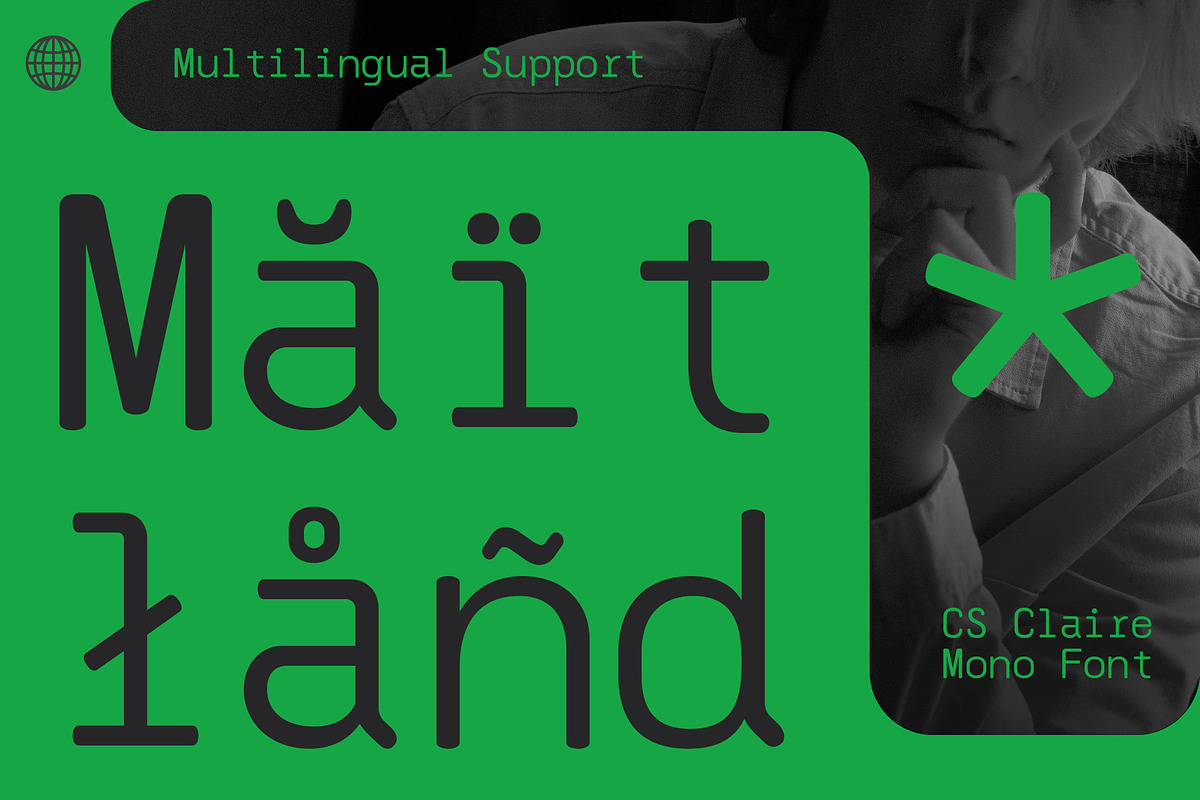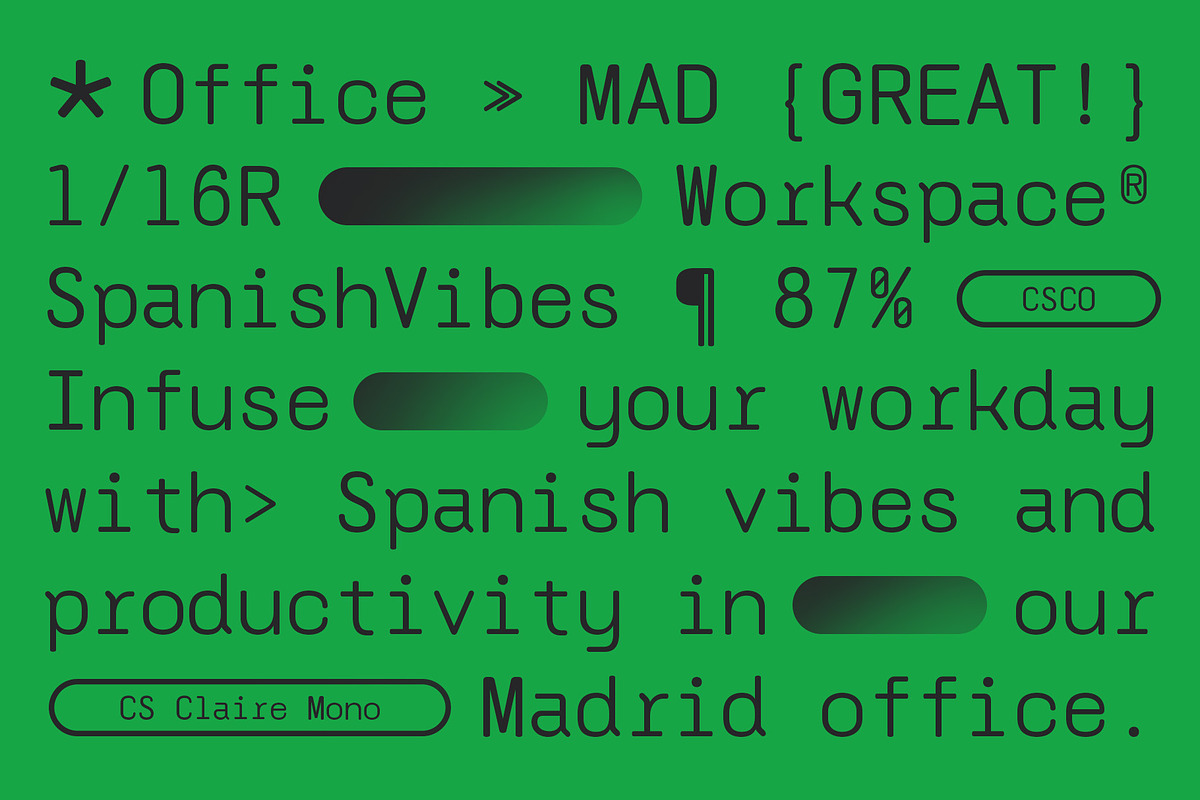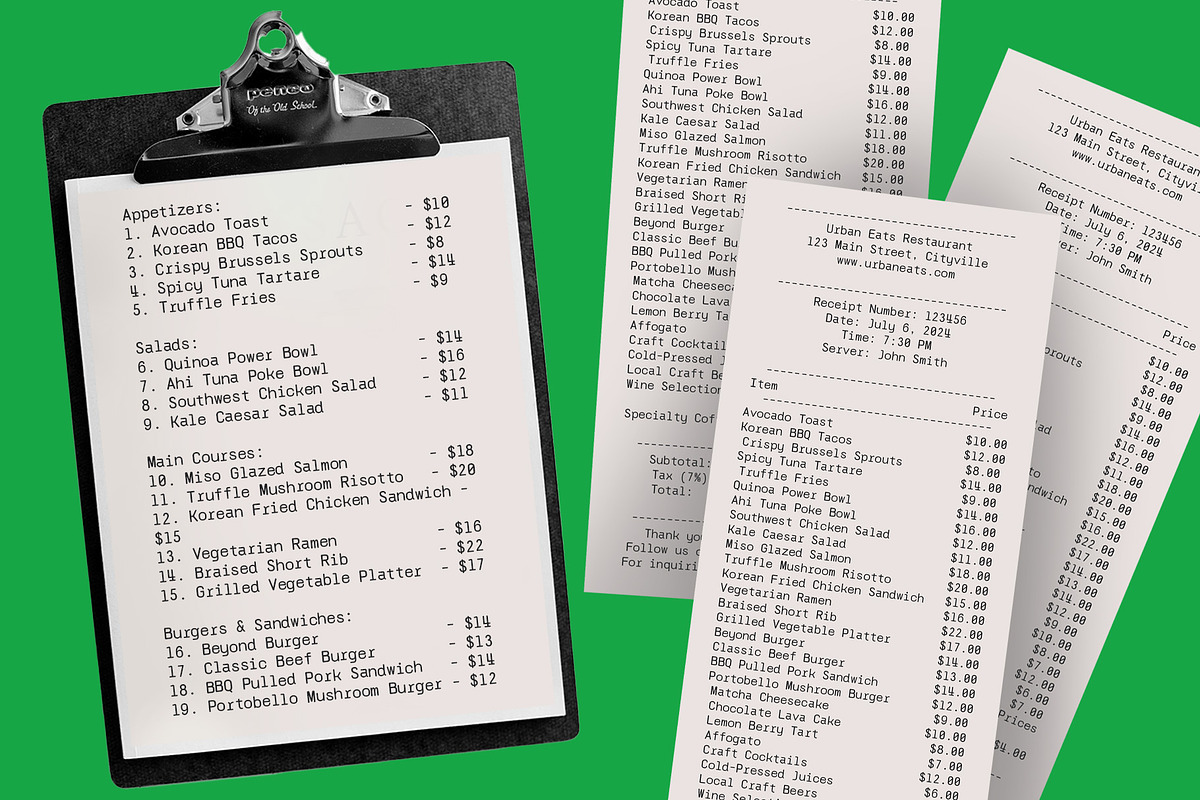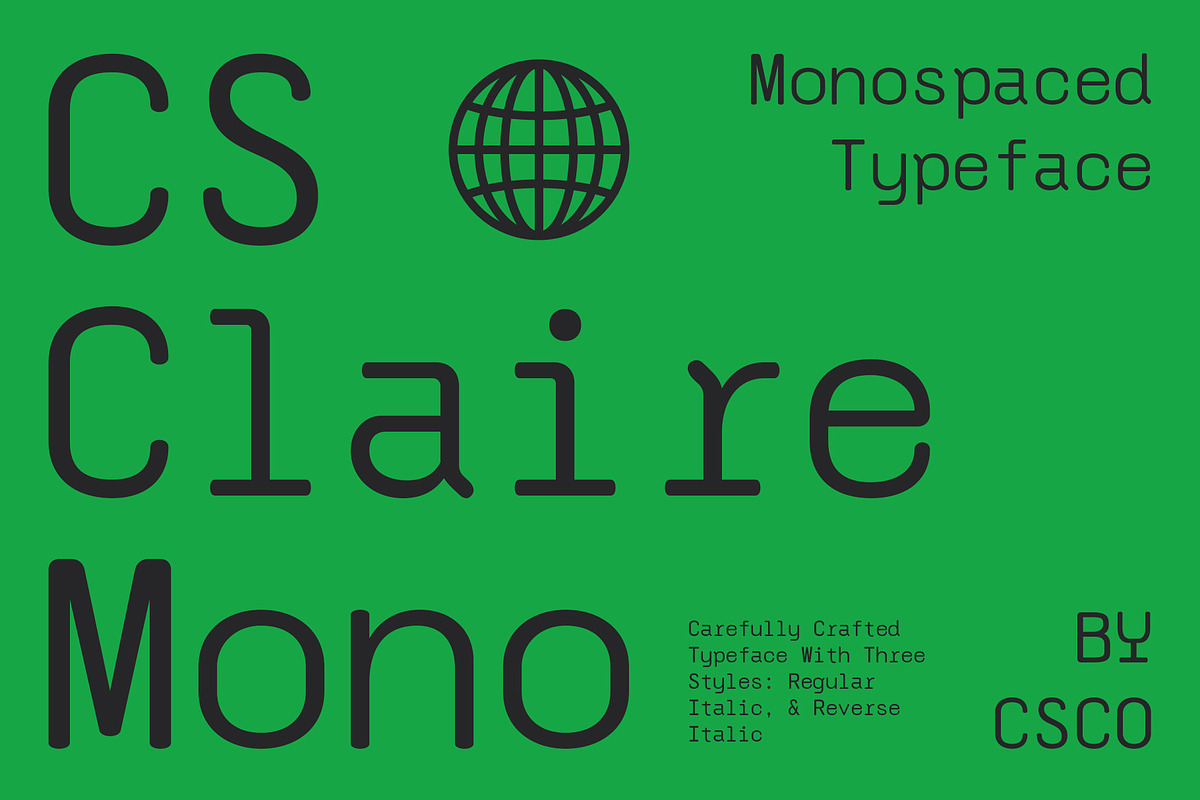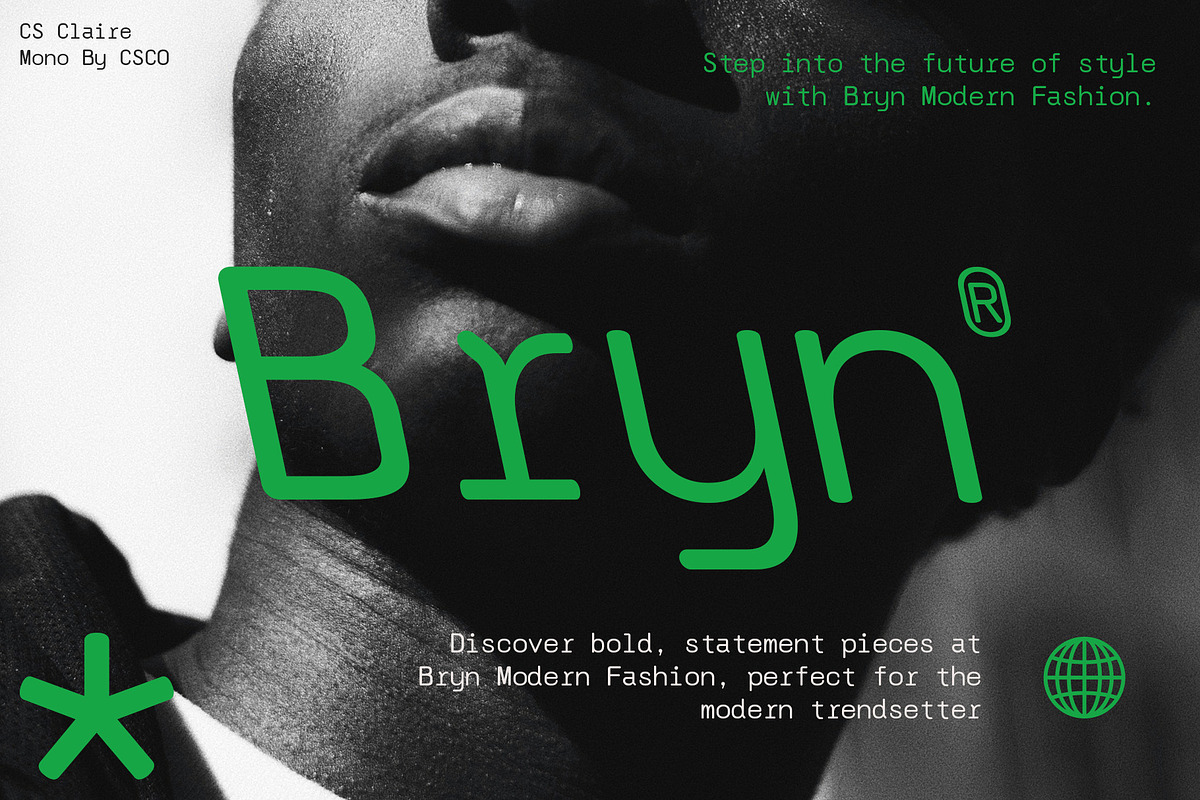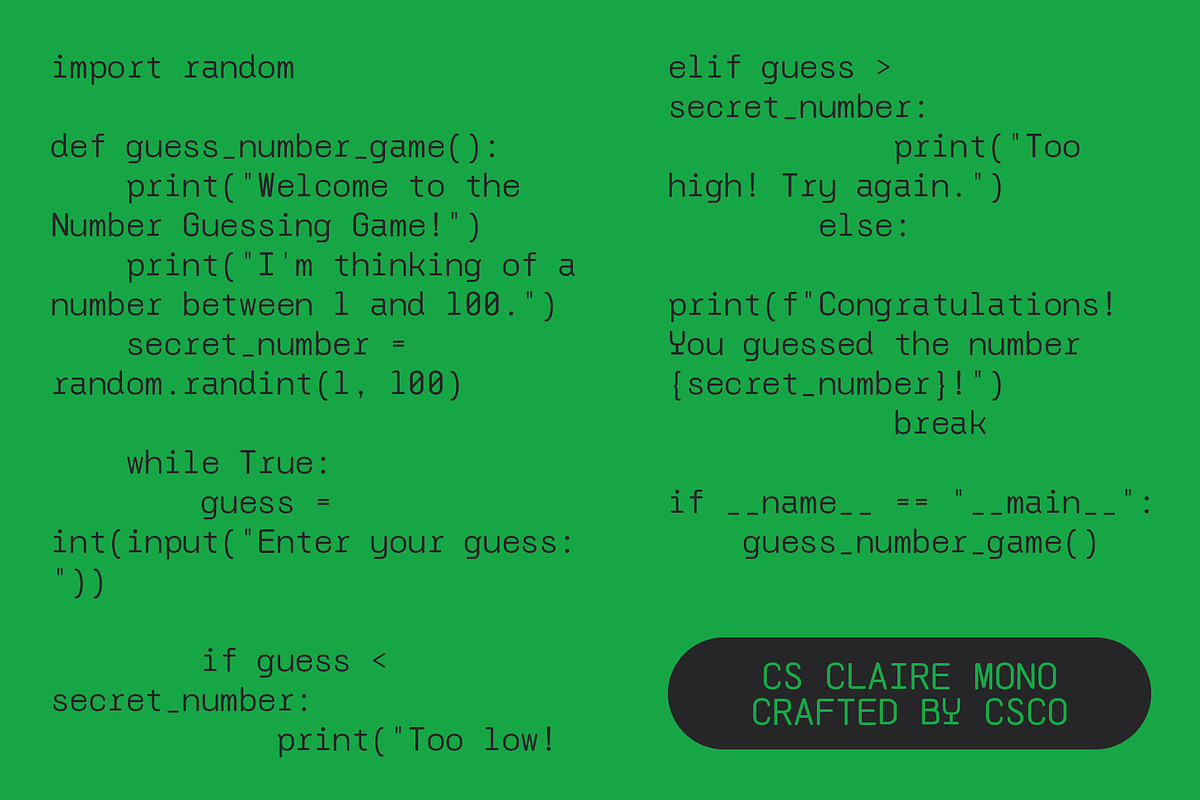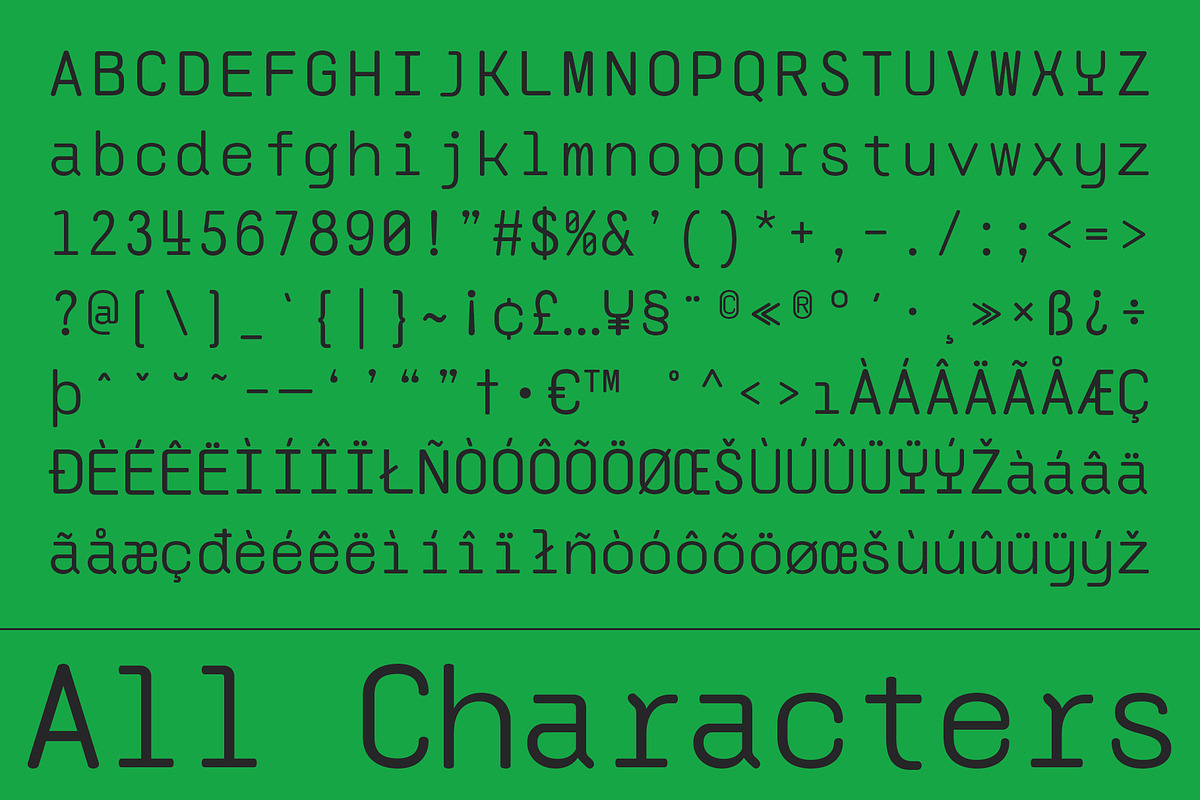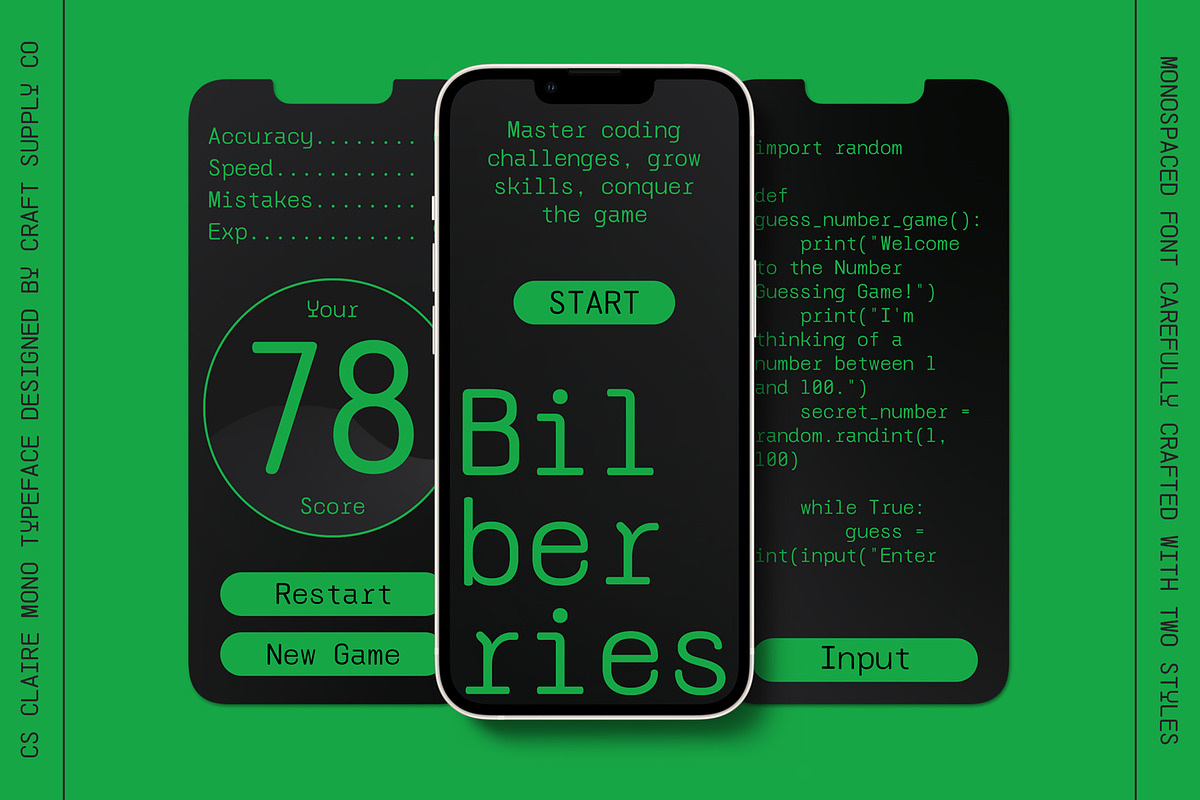
CS Claire Mono – Monospaced Typeface
CS Claire Mono – Monospaced Typeface: Clarity and Professionalism
Modern Monospaced Sans-Serif Font CS Claire Mono is a meticulously designed modern monospaced sans-serif font, meticulously crafted to ensure clarity and elegance across a wide range of applications. Whether used for shopping receipts or programming layouts, its precise shapes and dedication to readability make it an ideal choice for technical and professional environments.
Precision in Design Designed with precise shapes, this CS Mono sans serif font ensures consistent character widths and clarity in text, enhancing readability across various digital and print mediums. Its clean lines and balanced proportions maintain a crisp appearance, perfect for conveying information clearly and effectively.
Enhance Your Design Projects Choose this font to elevate your design projects with its combination of precision, professionalism, and elegant simplicity. Whether you’re crafting user interfaces, preparing technical documents, or designing promotional materials, this CS Mono sans serif font ensures your content not only communicates effectively but also leaves a lasting impression of clarity and professionalism.
Versatile Usage Beyond its technical prowess, this CS Mono sans serif font offers versatility in application. It excels in environments that demand a sophisticated and professional aesthetic, such as coding environments, invoices, and documentation. Whether integrated into digital interfaces or used in printed documents, this font maintains a professional presentation while enhancing the visual appeal and readability of your content.